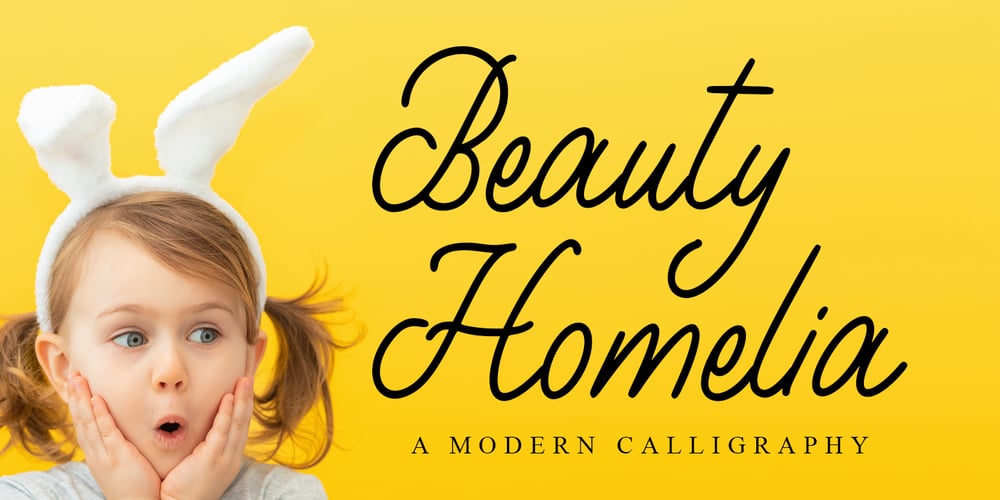
Beauty Homelia Font Family was designed by Novia Himatunnisa and published by Nissa Nana. Beauty Homelia contains 1 styles and family package options. Beauty Homelia feels equally charming and elegant. It looks stunning on wedding invitations, thank you cards, quotes, greeting cards, logos, business cards and every other design that needs a customized touch.